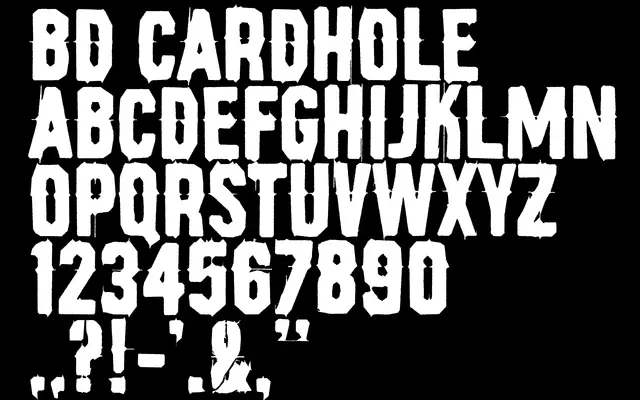
BD Cardhole
Type Different · 2021
A single-weight free display face built around deliberately unsettling letterforms suited to horror or lo-fi punk aesthetics.
BD Cardhole offers one weight of upper and lowercase letters, both described by the foundry as intentionally horrifying in character. The glyph set is minimal, covering Basic Latin with a handful of punctuation and alternates. It is a free download aimed squarely at decorative horror or rebellious graphic contexts rather than any serious typographic application.
An all-caps display face with deliberately distressed, creepy letterforms designed for decorative horror-themed use rather than body text.